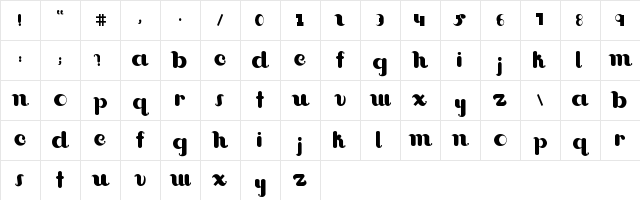
Interact Regular
Foundry: Kayla Nicole Zappone
Designer: Kayla Zappone
Design Context for Interact
Interact is a composed and adaptable typeface that performs quietly and consistently across a wide range of design contexts.